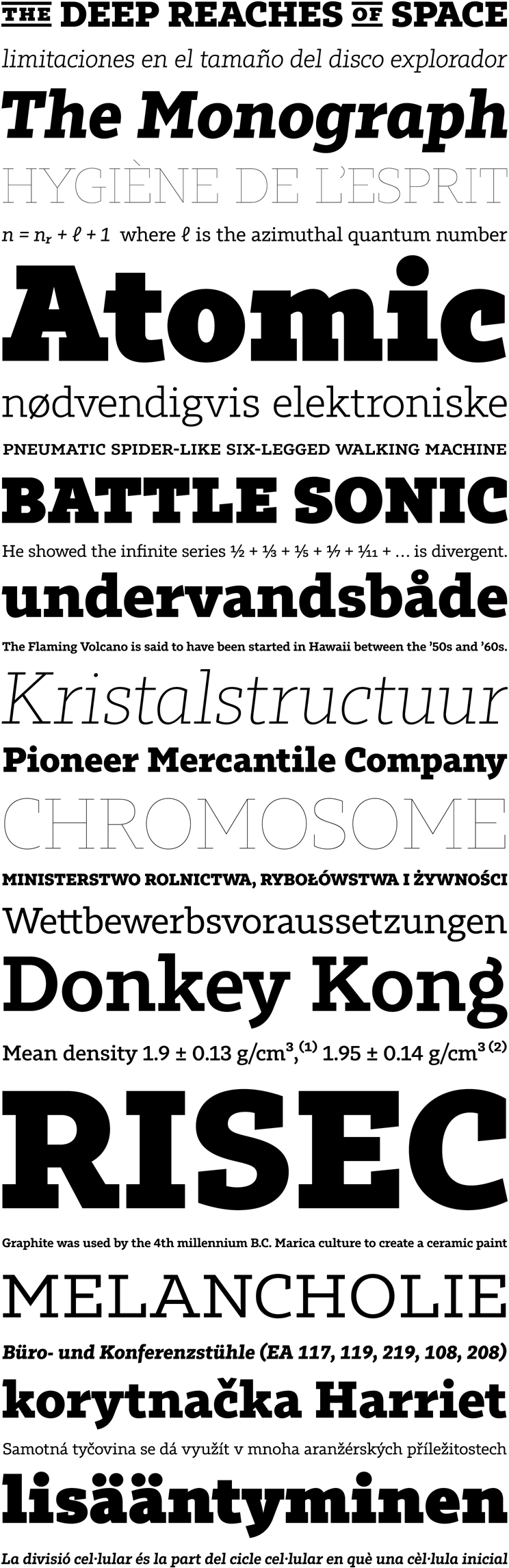
Tabac Slab
Tomas Brousil
Tabac Slab was created by combining several contradictory influences, the result of which is a universal linear font. The combination of brisk serifs and refined calligraphic details in the structure of the characters serves to create an original concept that mixes influences from both book and advertising graphics. Serifs aid legibility in long texts, while small drawn details realise their full potential in sizes of twenty-four points and larger. Read more...